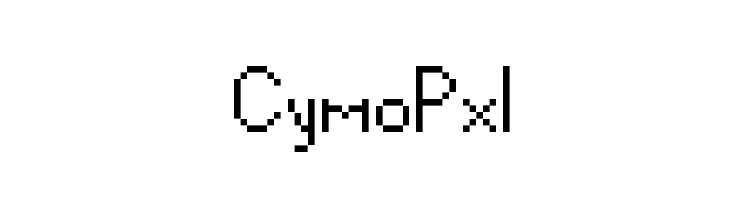
A pixelated, retro-style font with a blocky, geometric design.
A pixelated, LED-inspired font with a modern, digital aesthetic.
A pixelated, monospaced font with a retro digital style.